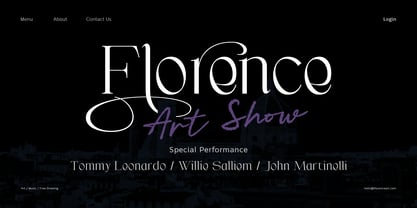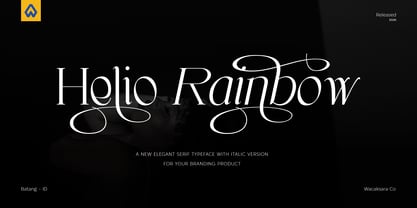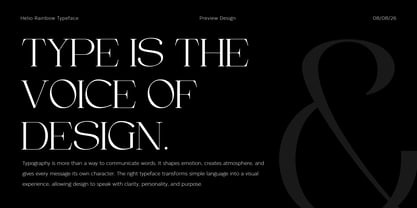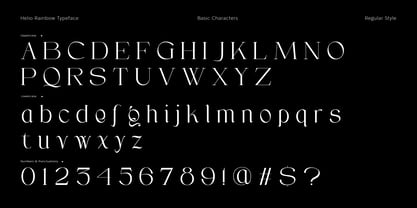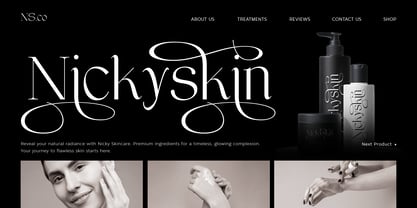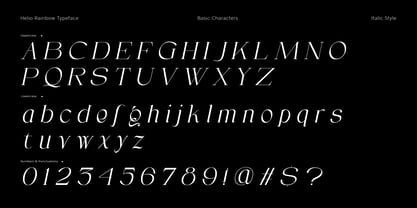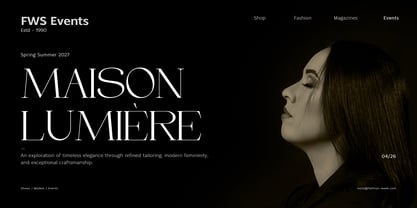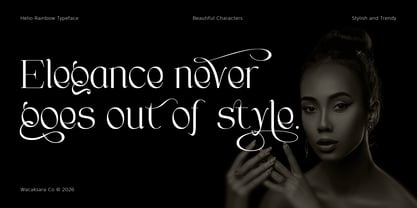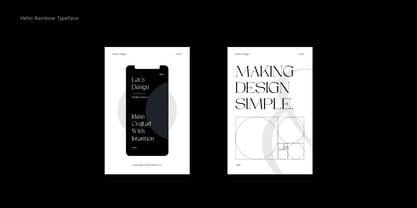
Helio Rainbow Serif
by Wacaksara co
The Helio Rainbow Serif Font Family was designed by Hamam Jauhari and published by Wacaksara co. Helio Rainbow Serif contains 2 styles and family package options. More about this family
Helio Rainbow is an elegant high-contrast serif typeface designed for sophisticated display typography. Its refined proportions, delicate hairlines, and graceful curves create a distinctive balance between classic elegance and contemporary fashion.
The family includes Regular and Italic styles, with expressive lowercase characters and alternative glyphs that add variety and personality to your typography.
Helio Rainbow is ideal for fashion and luxury branding, editorial design, beauty and skincare, wedding stationery, magazines, logos, packaging, invitations, posters, and sophisticated visual identities.
Designed for large-scale display use, Helio Rainbow brings an elegant and expressive character to headlines, brand names, titles, and other prominent typographic applications.
Designers: Hamam Jauhari
Foundry: Wacaksara co